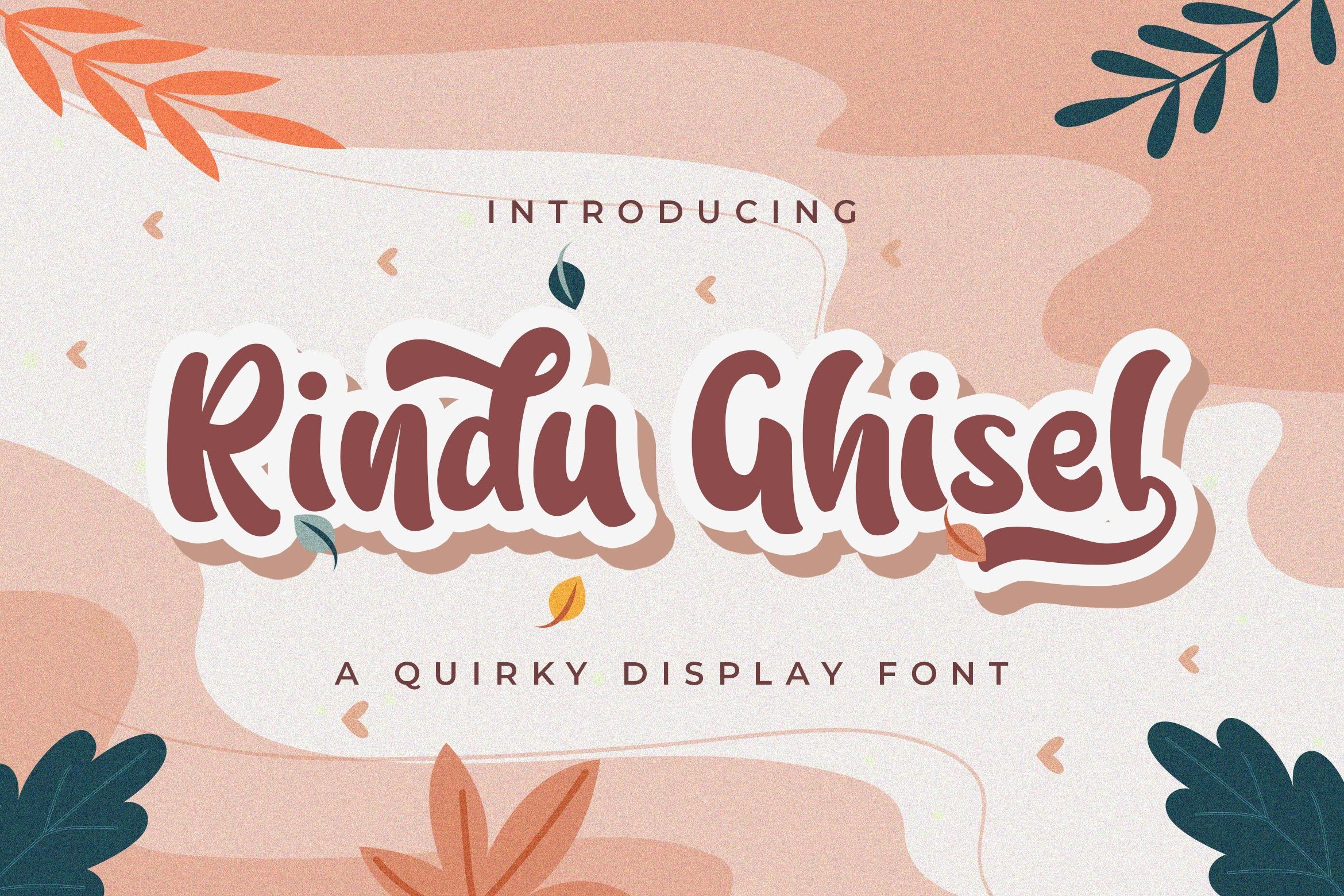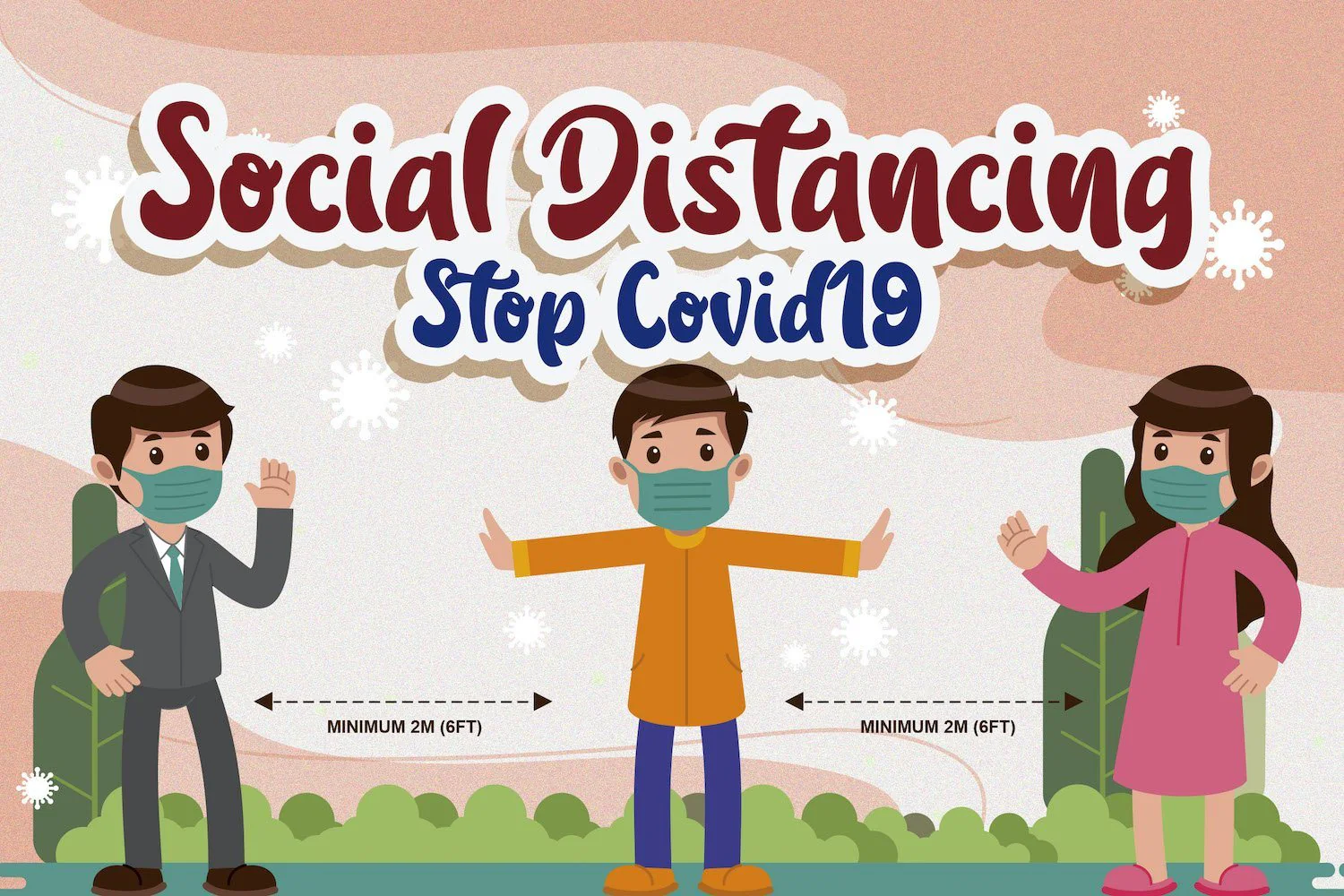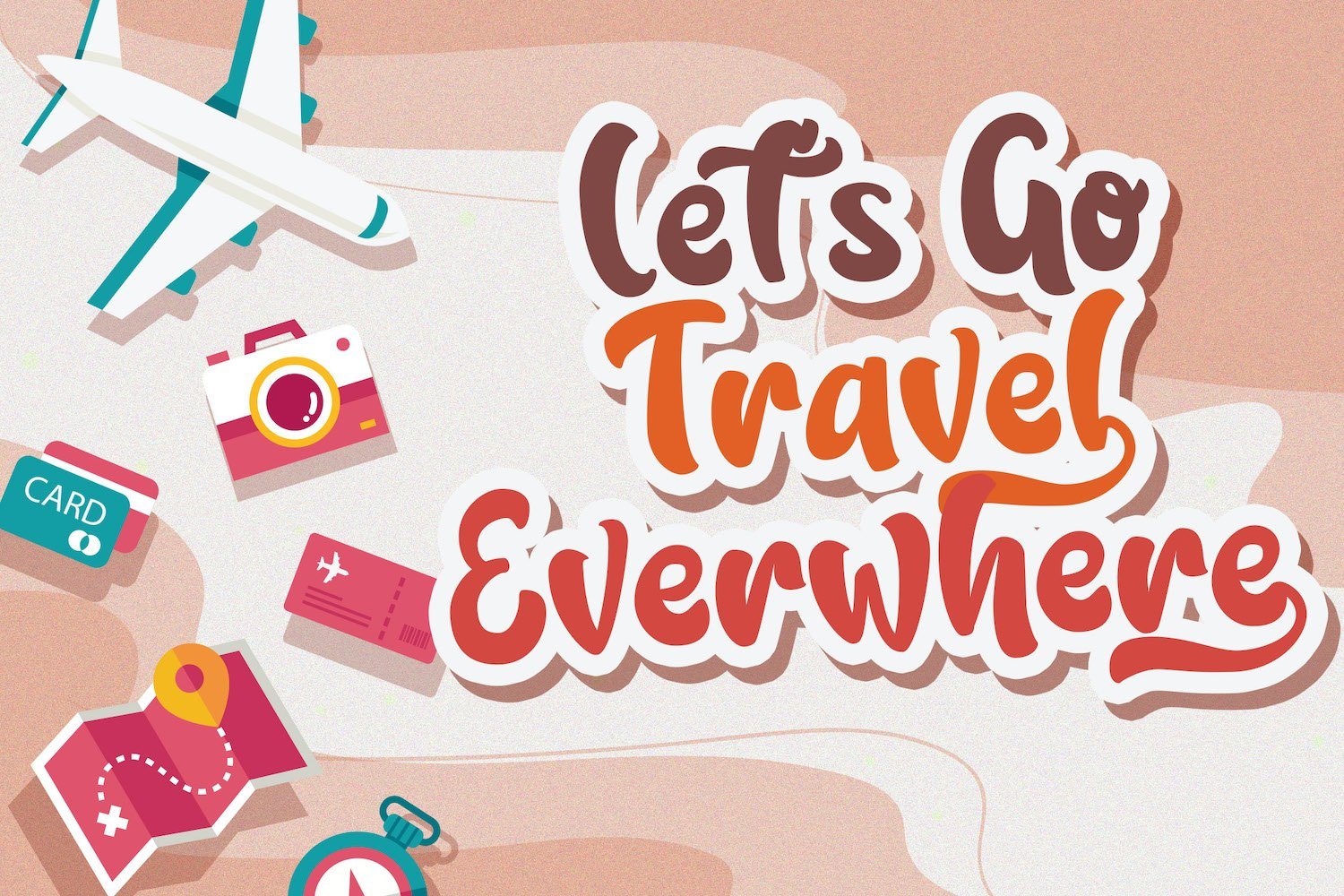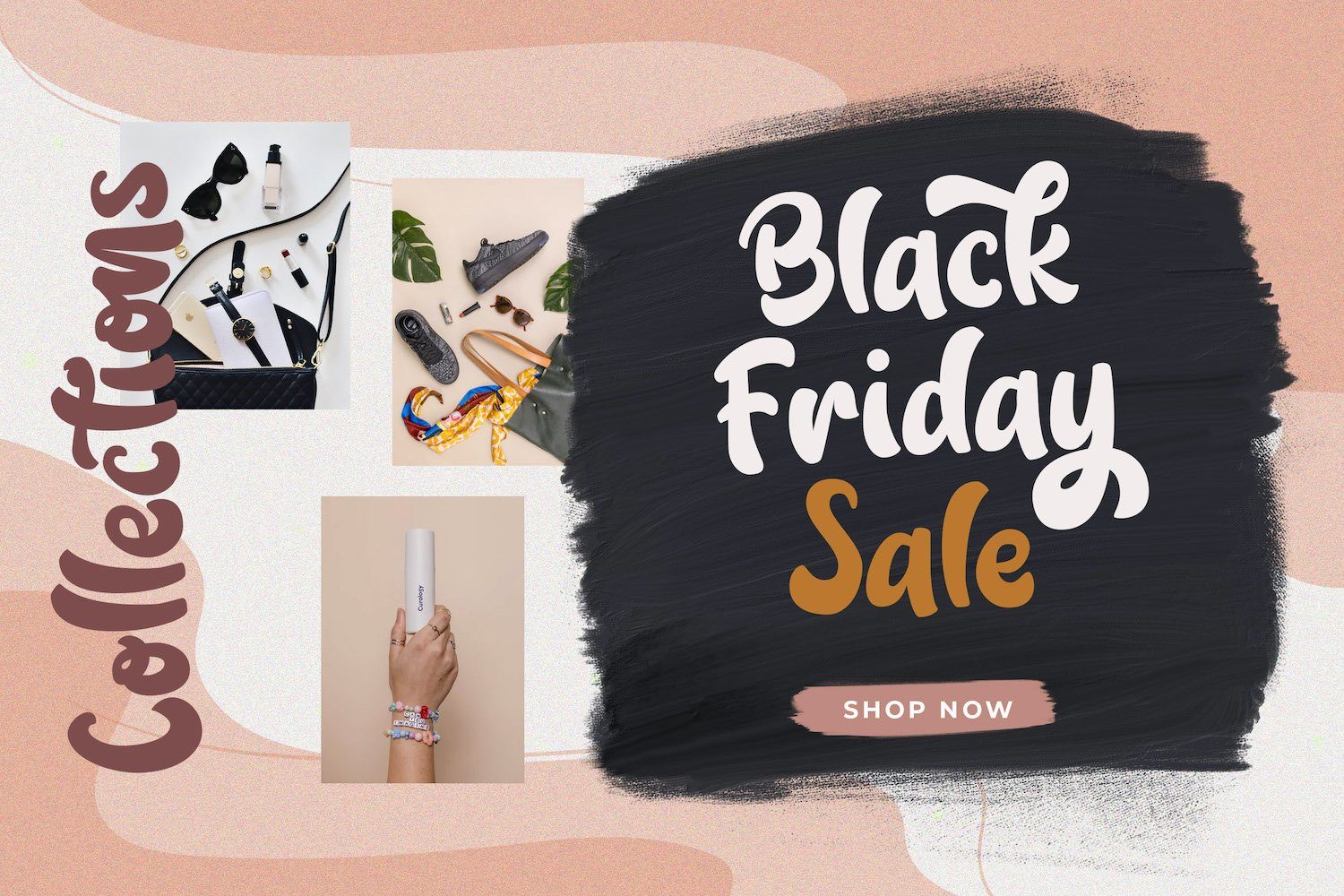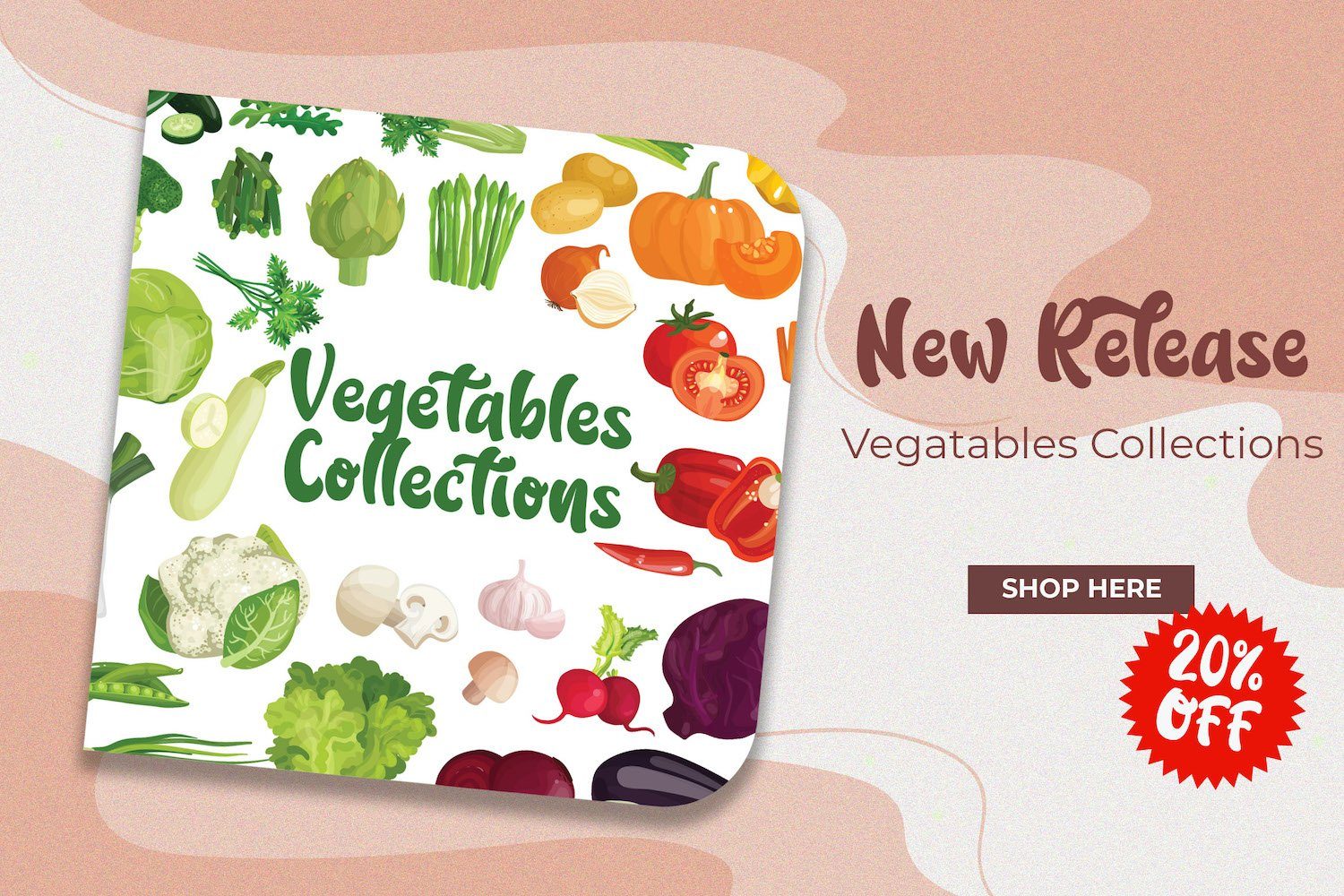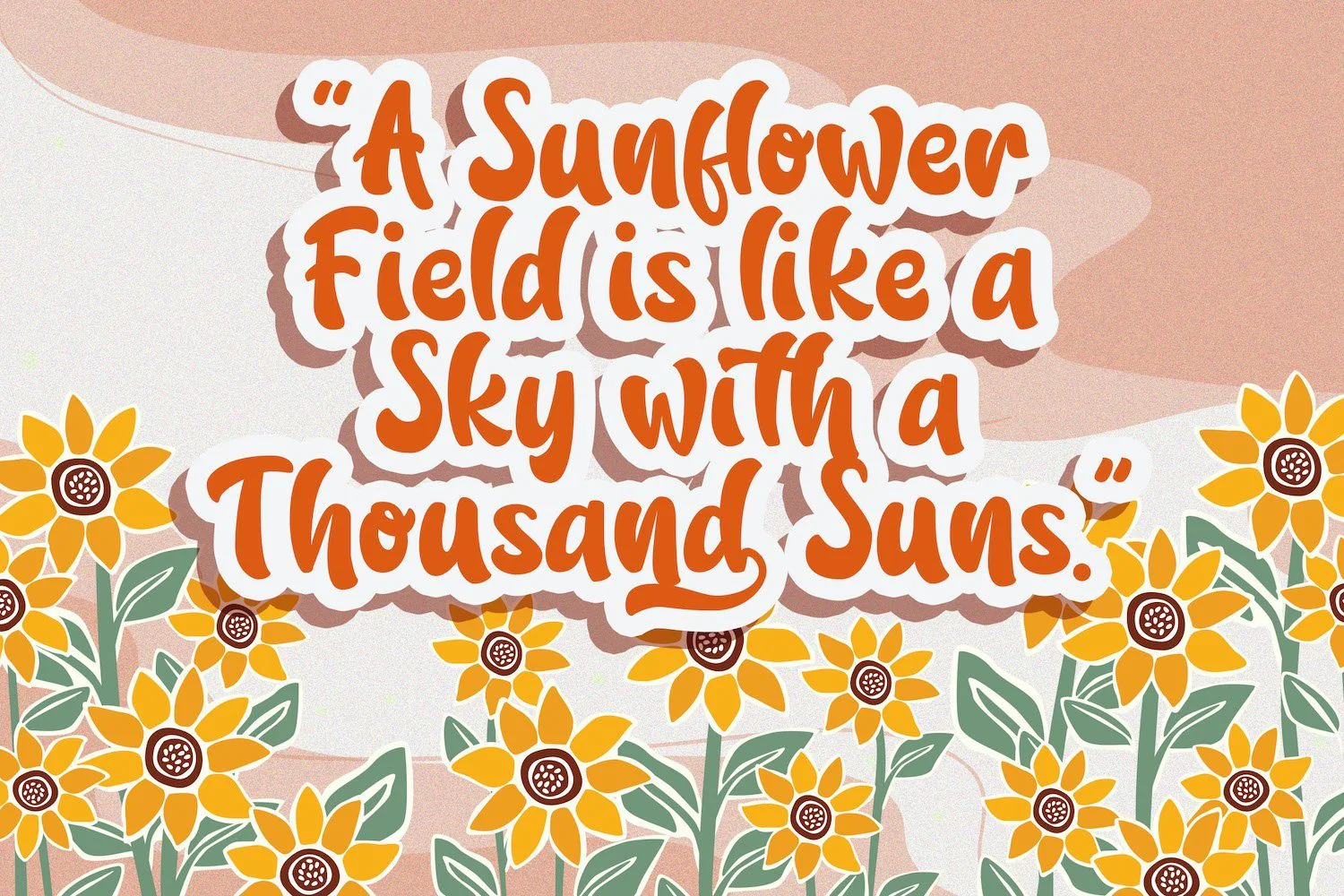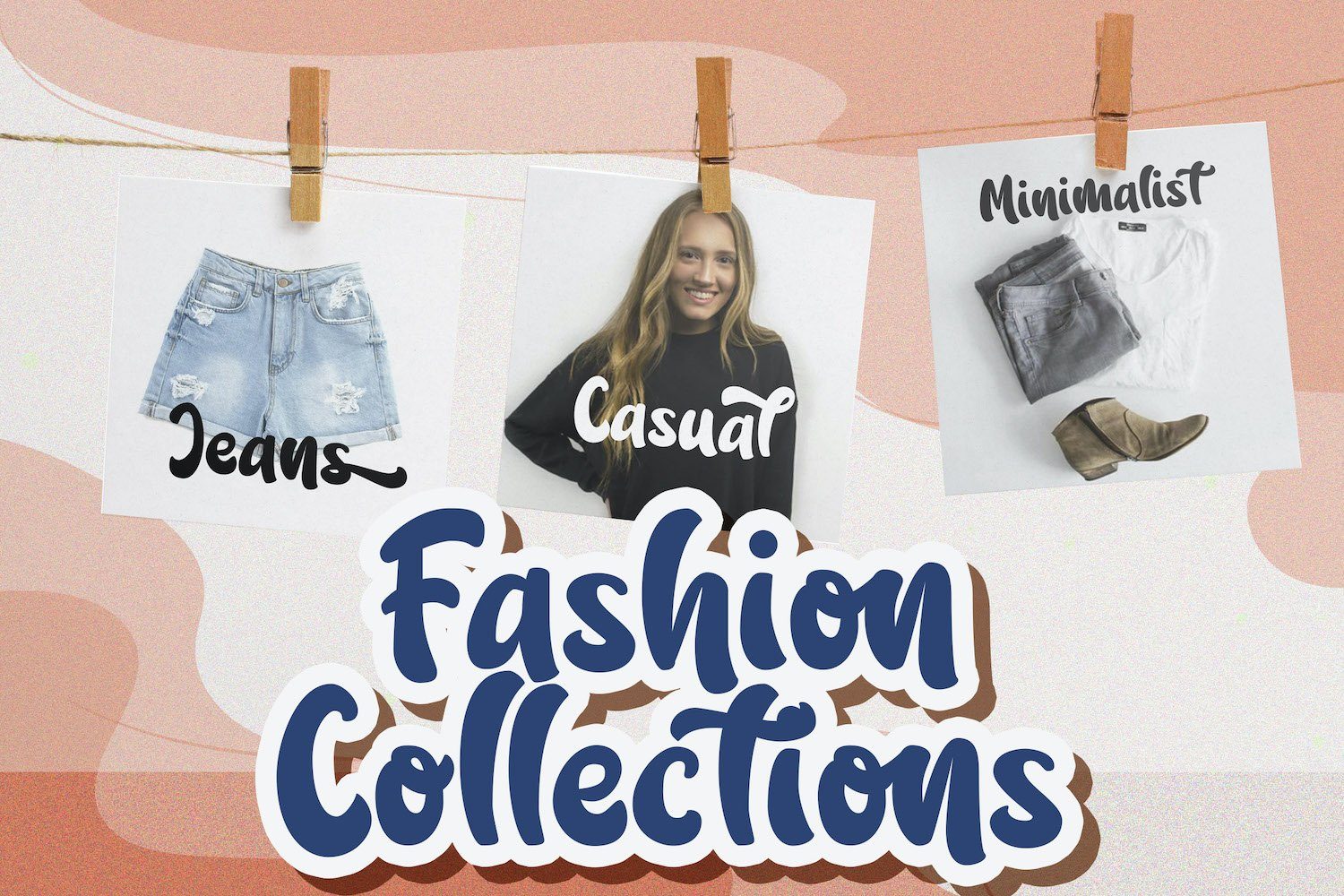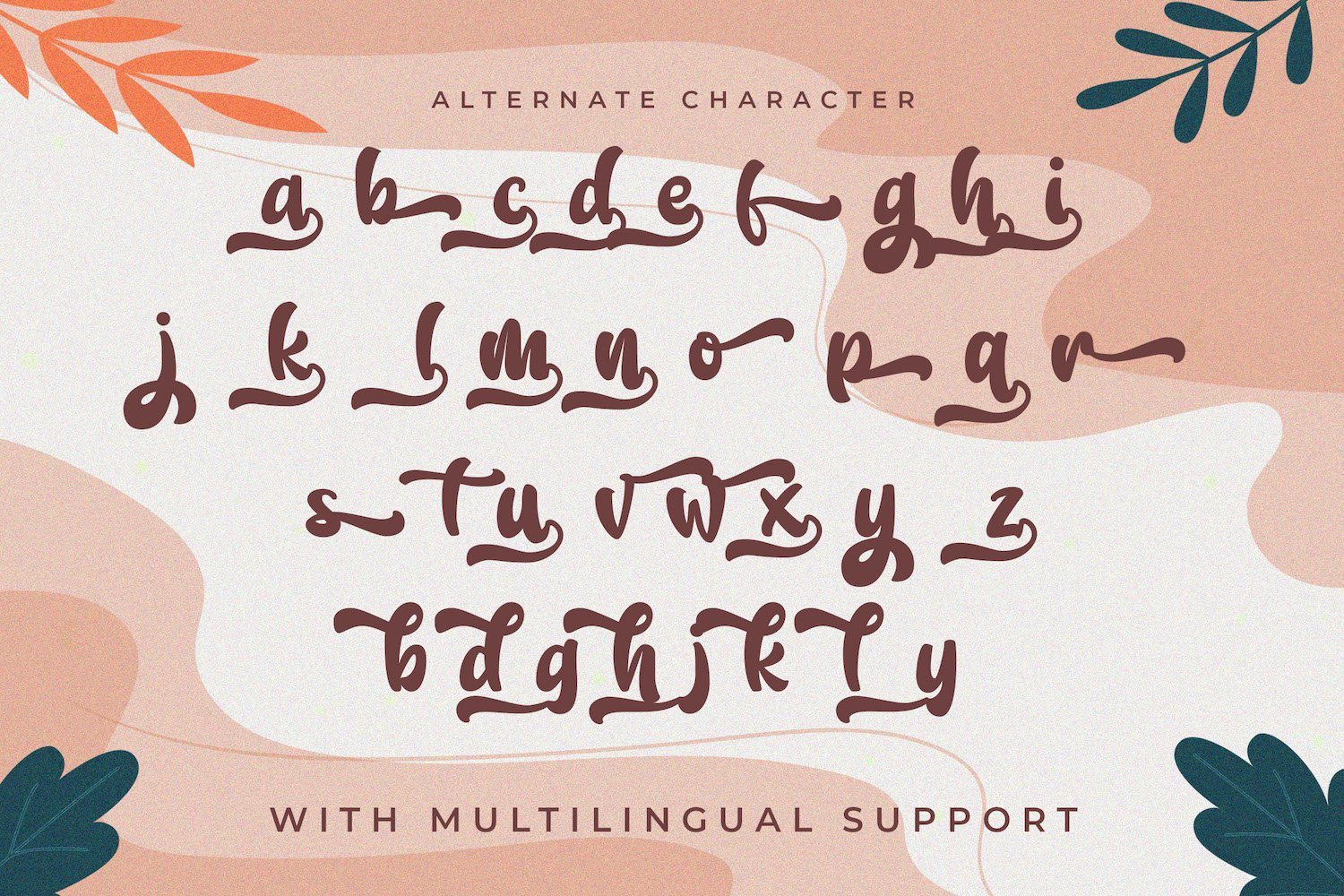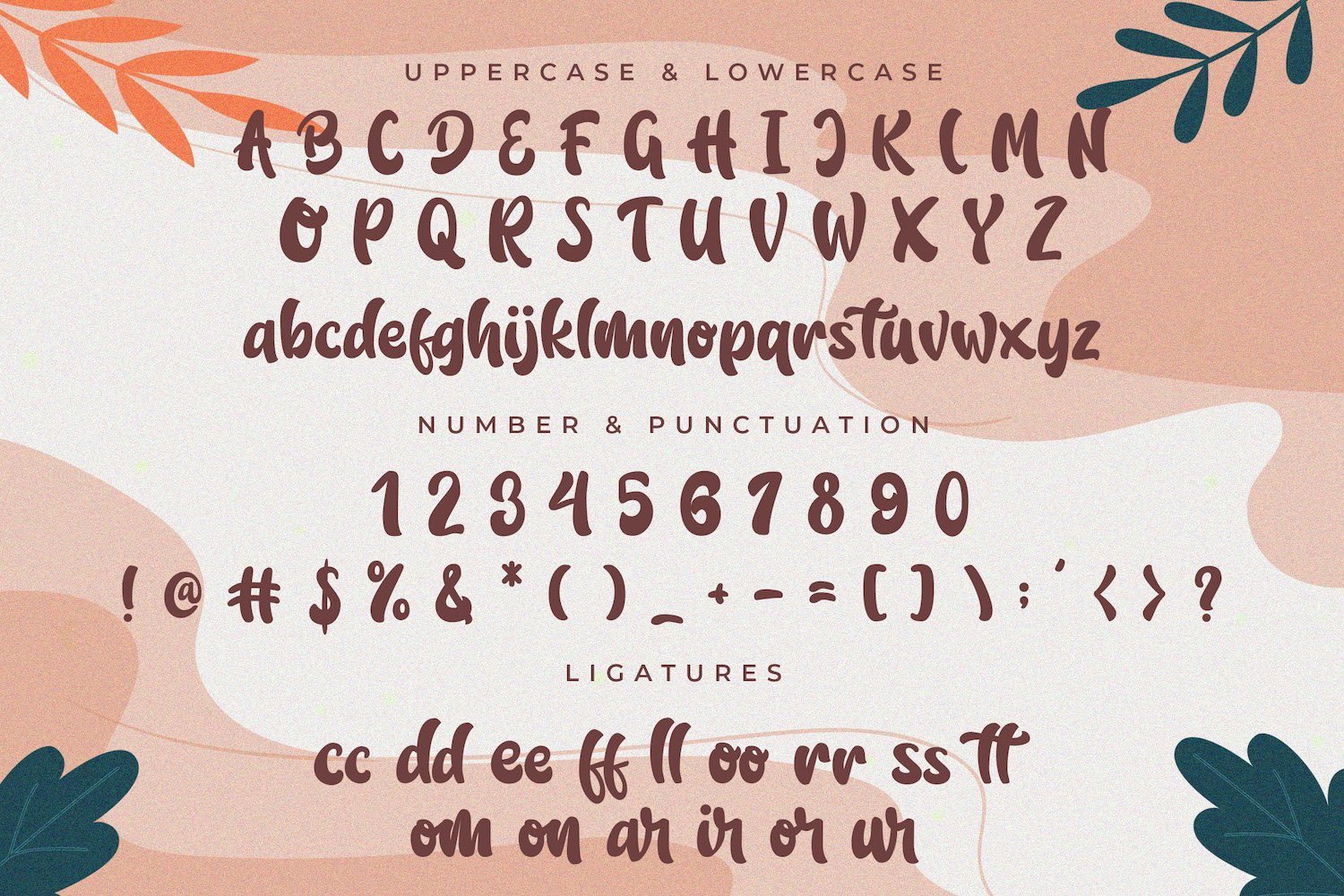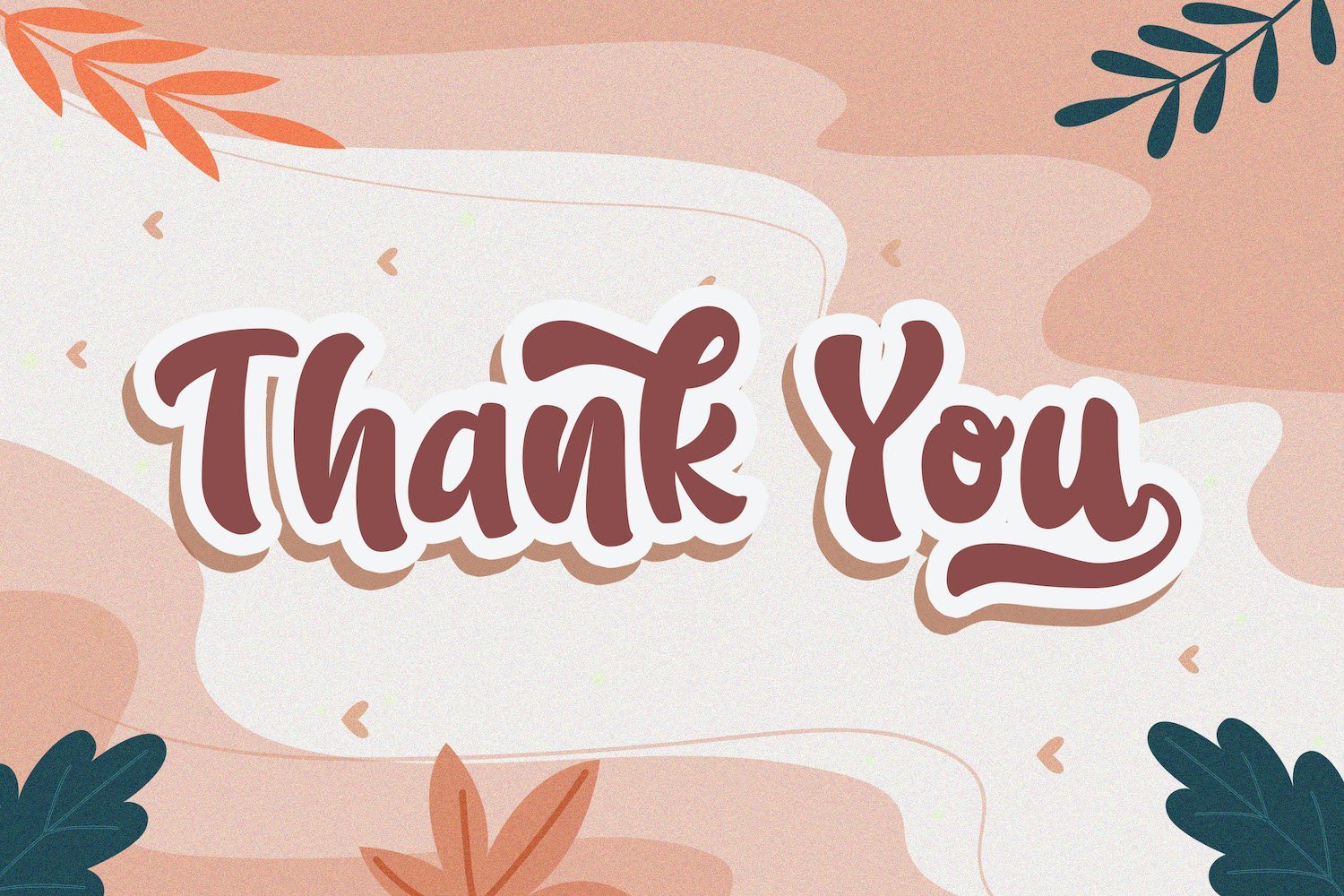
Rindu Ghisel - Quirky Script Font
Introducing Rindu Ghisel - Quirky Script Font
Rindu Ghisel is a cute and quirky script font. Its friendly feel makes this font incredibly versatile, fitting a wide range of contexts. Add it to your creative ideas and notice how it makes them stand out!